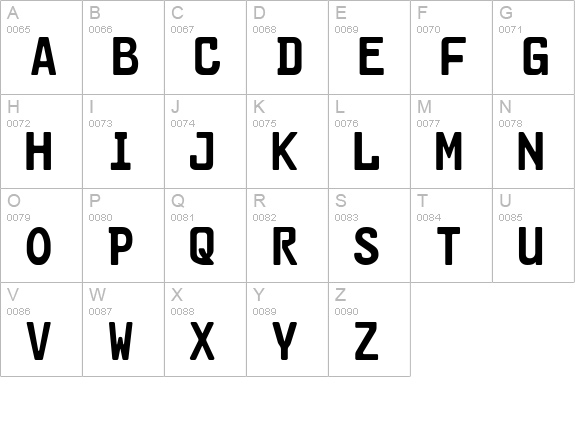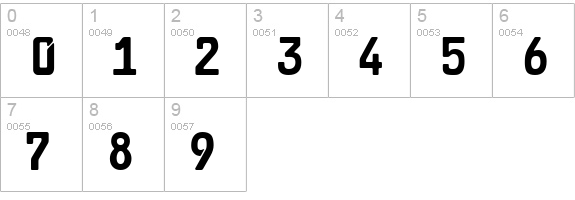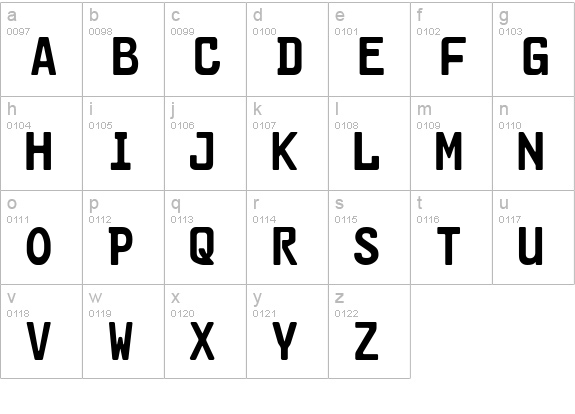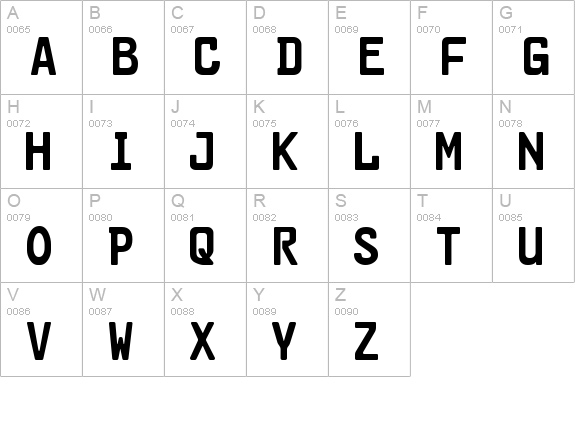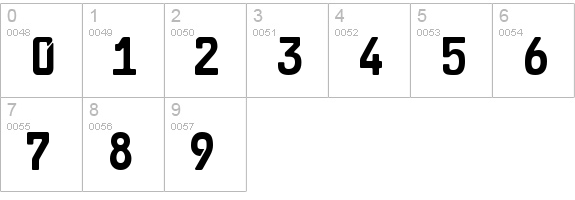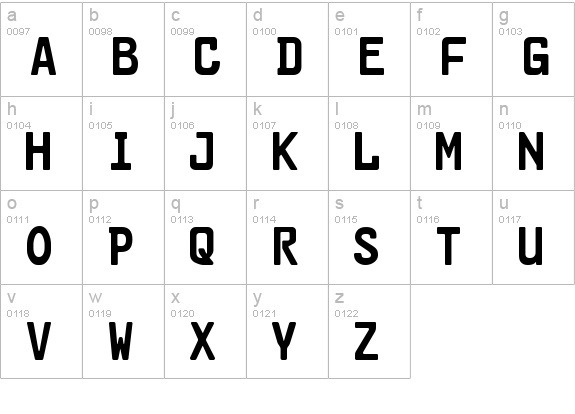
Cargo Two SF Font Details
Cargo Two SF is a modern and stylish sans-serif font that exudes sophistication and minimalism. Its clean lines and sleek design make it perfect for a wide range of projects, from branding to editorial design. This versatile typeface is easy to read and highly legible, making it suitable for both digital and print applications. What sets Cargo Two SF apart is that it is available for free download at FontsMarket.com. This means that you can easily access this high-quality font without any cost, making it a valuable addition to your design toolkit. Whether you are a professional designer or a hobbyist looking to elevate your projects, Cargo Two SF is a must-have font that offers both style and accessibility. Download it today and see how it can enhance your creations!